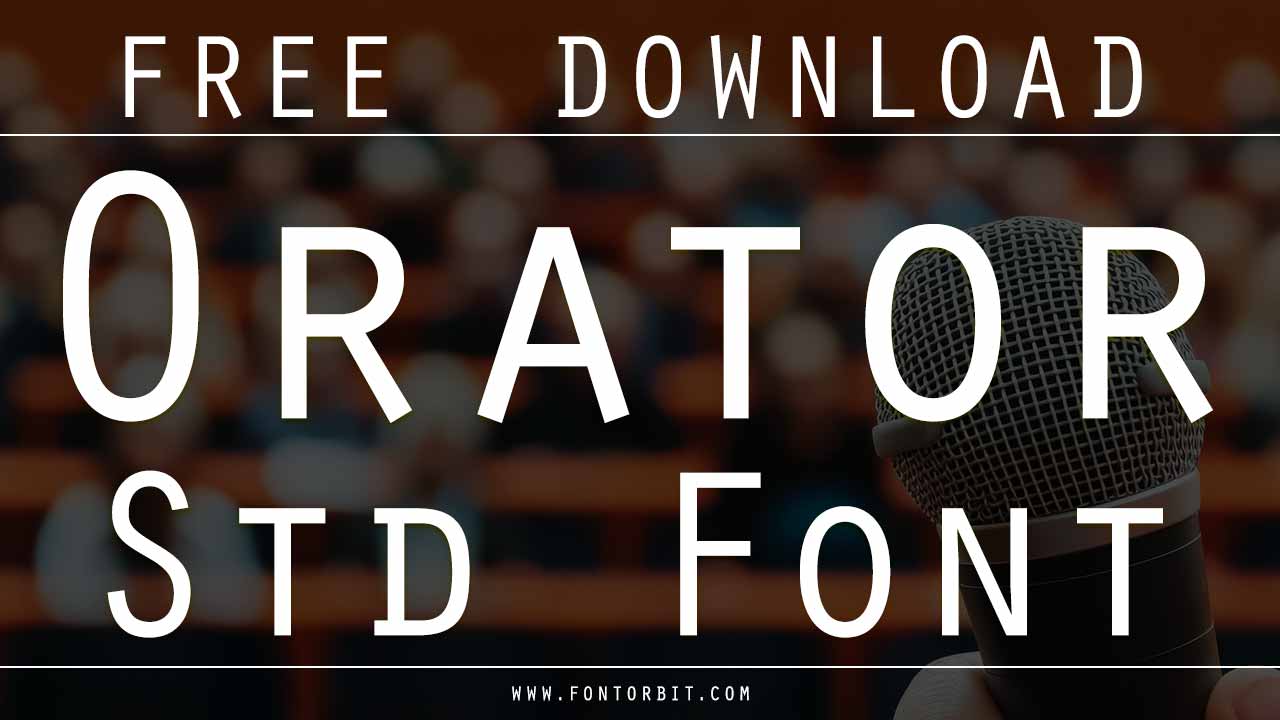
When it comes to selecting a typeface that can handle both digital and print materials, Orator Std stands as a highly effective choice. Created by John Schepper and released by Adobe Fonts in 2012, this sans serif font has quickly become a go-to option for designers seeking clarity, versatility, and elegance. Whether you’re working on website designs or printed reports, Orator Std has the flexibility to make your content stand out.
Orator Std Font Family
The Orator Std font family includes four styles catering to various design needs. Here’s a breakdown of the options:
| Font Style | Description |
| Orator Std Regular | The classic and most versatile style, suitable for body text and general use. |
| Orator Std Bold | Perfect for headings or any design that requires strong emphasis. |
| Orator Std Medium | Balanced and professional, it is great for subtle emphasis in digital and print. |
| Orator Std Slanted | Adds dynamic movement, ideal for more energetic or informal contexts. |
Why Choose Orator Std?
Orator Std offers several advantages, making it ideal for both digital and printed materials. Below are some key features that stand out:
- Legibility: The font’s well-spaced glyphs ensure readability, even in large sizes.
- Versatility: It works equally well for website headers, branding, and technical documents.
- Support for Multiple Languages: Whether you’re designing for a global or local audience, Orator Std supports multiple languages.
- Clean Design: The Orator Std font family brings a modern and minimalistic feel to your projects, offering a clean, professional look.
Orator Std In Digital Media
Regarding web design, Orator Std offers a sleek, professional aesthetic that’s perfect for any digital project. Its clean lines and precise glyphs make it ideal for website headings, subheadings, and body text. Here’s why it’s such a great fit for digital platforms:
- Readability: The medium and slanted styles are ideal for website design and provide strong visual appeal without overwhelming the content.
- Versatility: Whether you’re working on digital ads, banners, or social media posts, Orator Std delivers clarity.
- International Use: It’s also great for websites targeting international audiences, as the font supports multiple languages.
Orator Std In Print Media
In the print world, Orator Std is a powerful, clean, and professional font. Whether it’s for business cards, brochures, technical documents, or reports, it’s designed to enhance clarity and keep the content looking polished.
- For Headlines: Use Orator Std Bold or Medium for headings in printed materials to grab attention without being overpowering.
- For Body Text: Use Orator Std Regular or Slanted to keep the text readable and engaging.
- Branding: For creating logos, brochures, or promotional material, Orator Std gives your brand a clean and professional image.
Font Pairing Suggestions
While Orator Std is highly versatile, pairing it with the right fonts can further elevate your designs. Here are some fonts that complement Orator Std perfectly:
- Arial font: A classic pairing that provides a simple, clean design.
- EF Thordis Sans font: Offers a more elegant and modern feel when paired with Orator Std.
- Rebel font: A bolder, more dynamic alternative for contrast in specific areas.
- OCR B font: A great match for projects requiring a technical or retro look.
How To Use Orator Std
To make the most of Orator Std, here are some practical suggestions on where and how to use it:
- Web Design: Use Orator Std Medium for headings and Slanted for dynamic sections like call-to-action buttons.
- Printed Materials: Combine Orator Std Bold for headings with Orator Std Regular for body text in documents, reports, and brochures.
- Branding: Choose Orator Std Regular for your logo and branding materials to ensure a professional yet modern look.
Key Features Of Orator Std Font
| Feature | Benefit |
| Versatile Styles | Four distinct styles to suit different design needs (Regular, Bold, Medium, and Slanted). |
| High Legibility | Well-spaced glyphs ensure readability in both large and small sizes. |
| Multi-language Support | It supports a wide range of languages and is ideal for international projects. |
| Font Formats | Available in Opentype and TrueType formats, compatible across software platforms. |
1.What Font Styles Are Included In The Orator Std Family?
The Orator Std font family includes four main styles:
- Orator Std Regular: The standard, most versatile style for body text.
- Orator Std Medium: Slightly bolder than regular, used for emphasis.
- Orator Std Bold: Strong and impactful, perfect for headings.
- Orator Std Slanted: Offers an energetic, italicized style ideal for informal or dynamic content. These styles allow for flexibility across digital and print applications, including logos, branding, and more.
2.Can Orator Std Font Be Used For Commercial Purposes?
Yes, Orator Std can be used for commercial projects, but it requires a proper license. You can purchase the font through Adobe Fonts to ensure you adhere to copyright regulations. The font information about licensing is available on the Adobe website, and you can choose between various licensing options, such as desktop or web fonts. Be sure to obtain the correct license for branding, printing, and other commercial applications.
3.How Does Orator Std Compare To Other Popular Fonts Like Arial?
While the Arial font is one of the most well-known sans serif fonts, Orator Std offers a more structured and professional look. The Orator Std font family has been designed with specific attention to glyphs and character spacing, making it more legible in both large print and small text sizes.
Compared to serif fonts, Orator Std maintains a clean, modern appearance with a more contemporary feel. Its balanced design sets it apart from more basic fonts, making it an excellent choice for both digital platforms and printed materials.
4.What Are Some Good Font Pairings With Orator Std?
Orator Std pairs well with other fonts that complement its modern, clean design. For instance:
- EF Thordis Sans font: This font works well with Orator Std Medium for a refined and elegant appearance in branding and digital content.
- Rebel font: Ideal for a bolder contrast when paired with Orator Std Bold for headings or emphasized sections.
- OCR B font: A more technical pairing that suits technical documents or projects requiring a retro, functional aesthetic. These similar fonts help create varied typographic compositions across different design projects, from professional to creative.
5.What File Formats Are Available For Orator Std?
The Orator Std font is available in both Opentype (OTF) and TrueType (TTF) formats, which are widely compatible with most design software and platforms. Additionally, you can use SVG format for scalable web designs and PNG format for high-resolution images in your projects. The font style and formatting remain consistent across these formats, ensuring your desired text maintains its intended appearance in digital and print applications.
6.How Can I Use Orator Std For Multilingual Projects?
One of the great features of Orator Std is its support for a wide range of supported languages, thanks to the comprehensive character map. The font includes special characters, punctuation, and other symbols necessary for global projects.
Orator Std will adapt to your needs, making it a strong choice for international branding and communication. Its glyphs are optimized to display clearly, even in complex scripts.